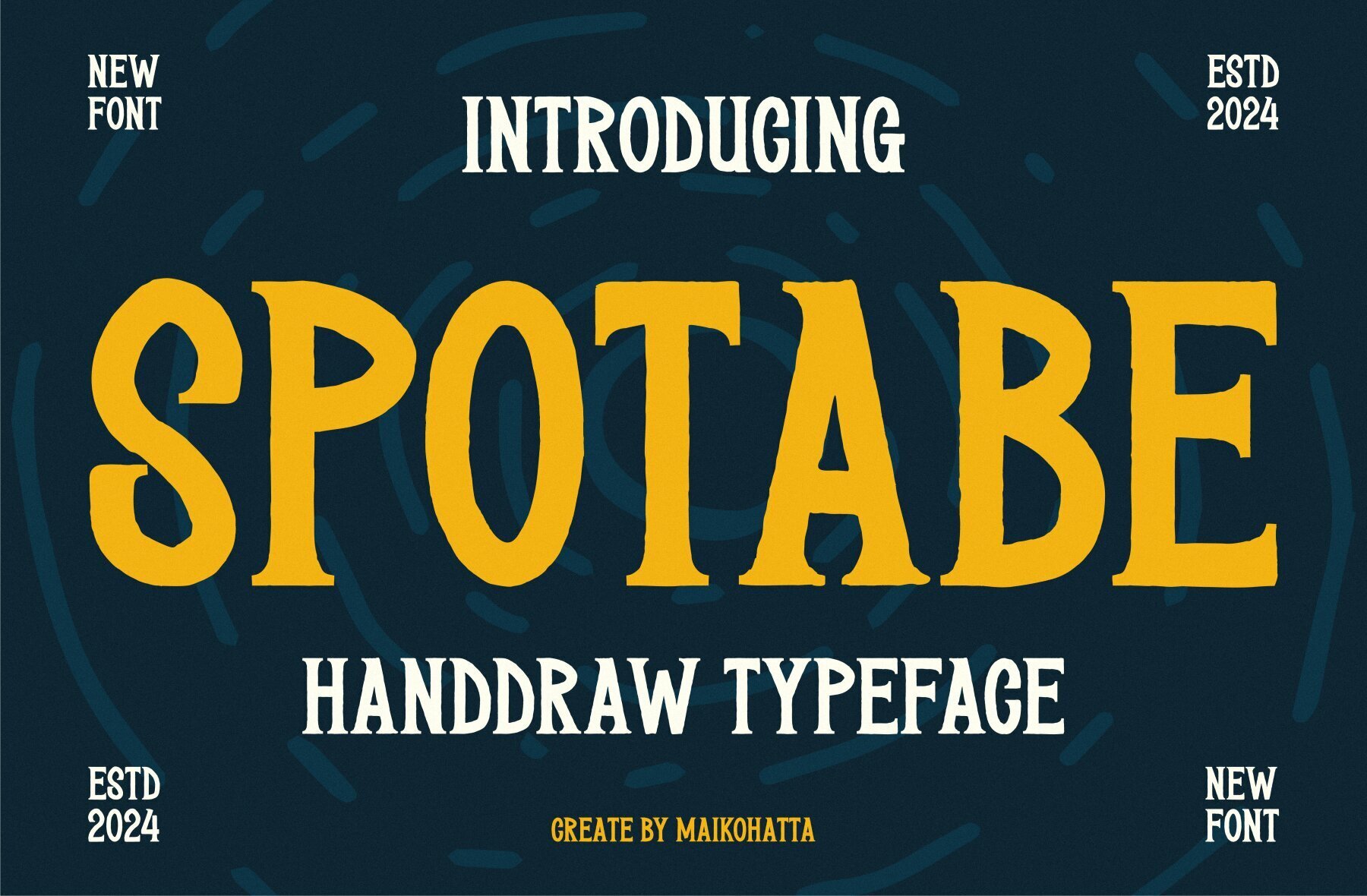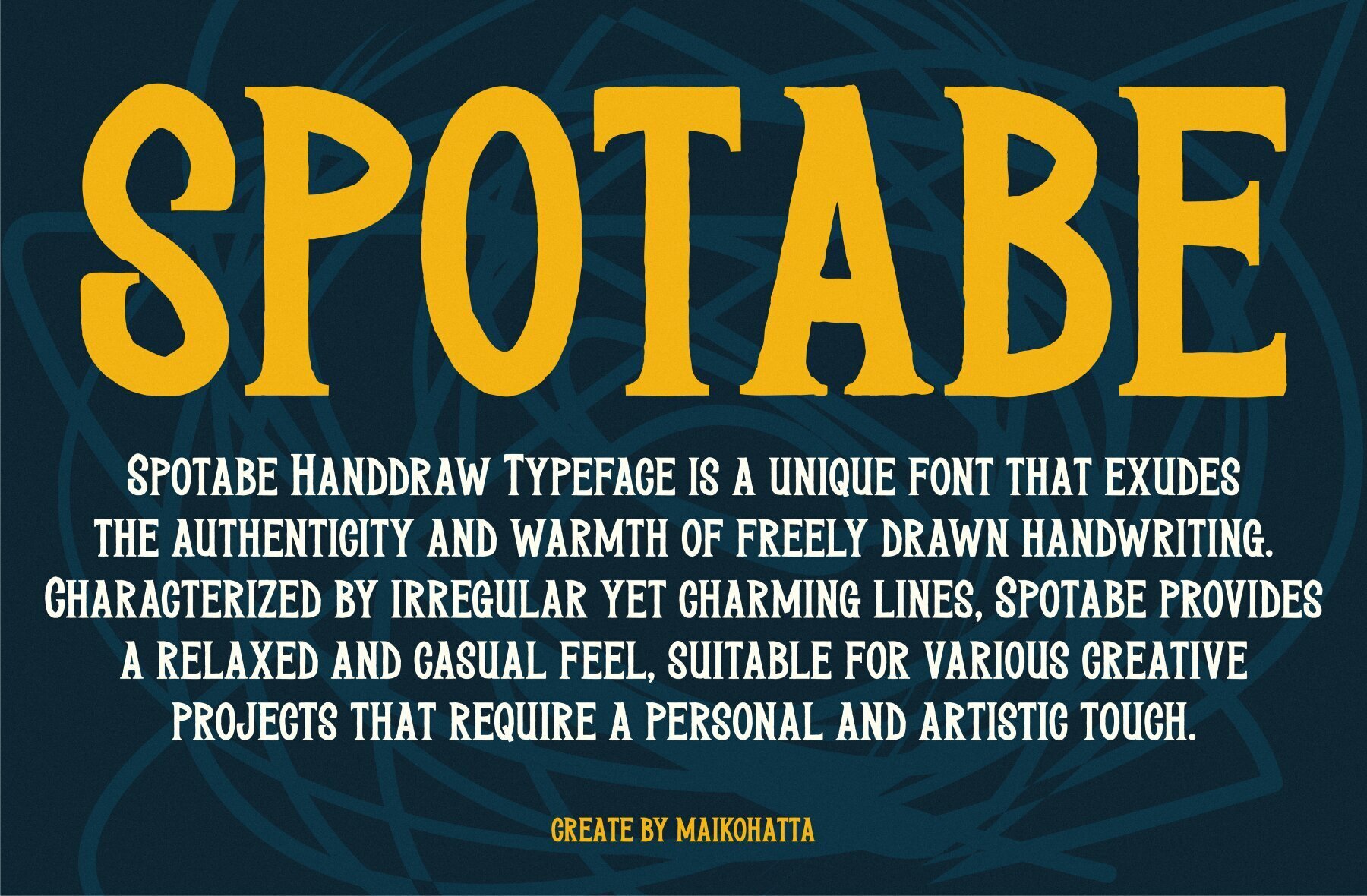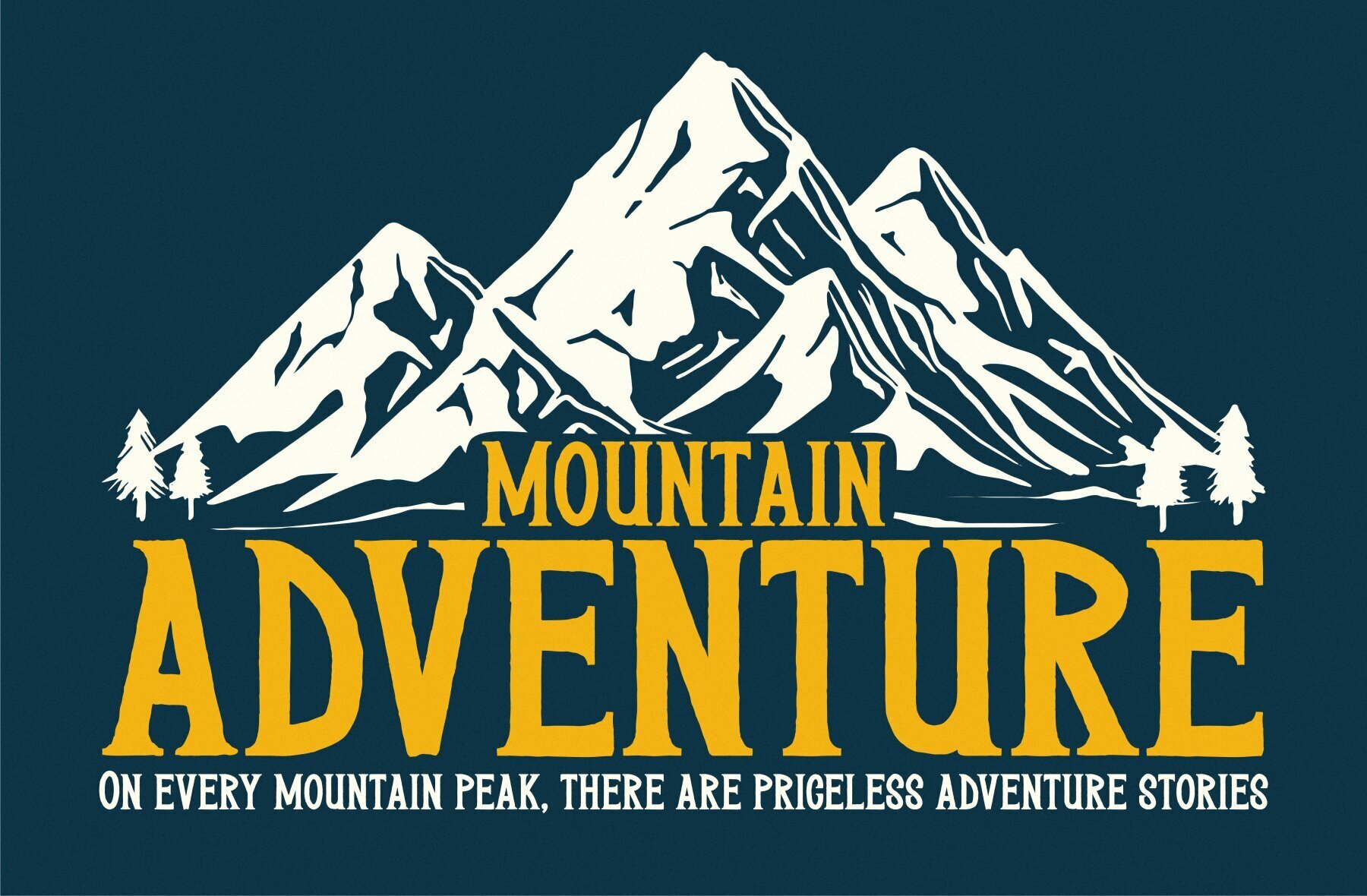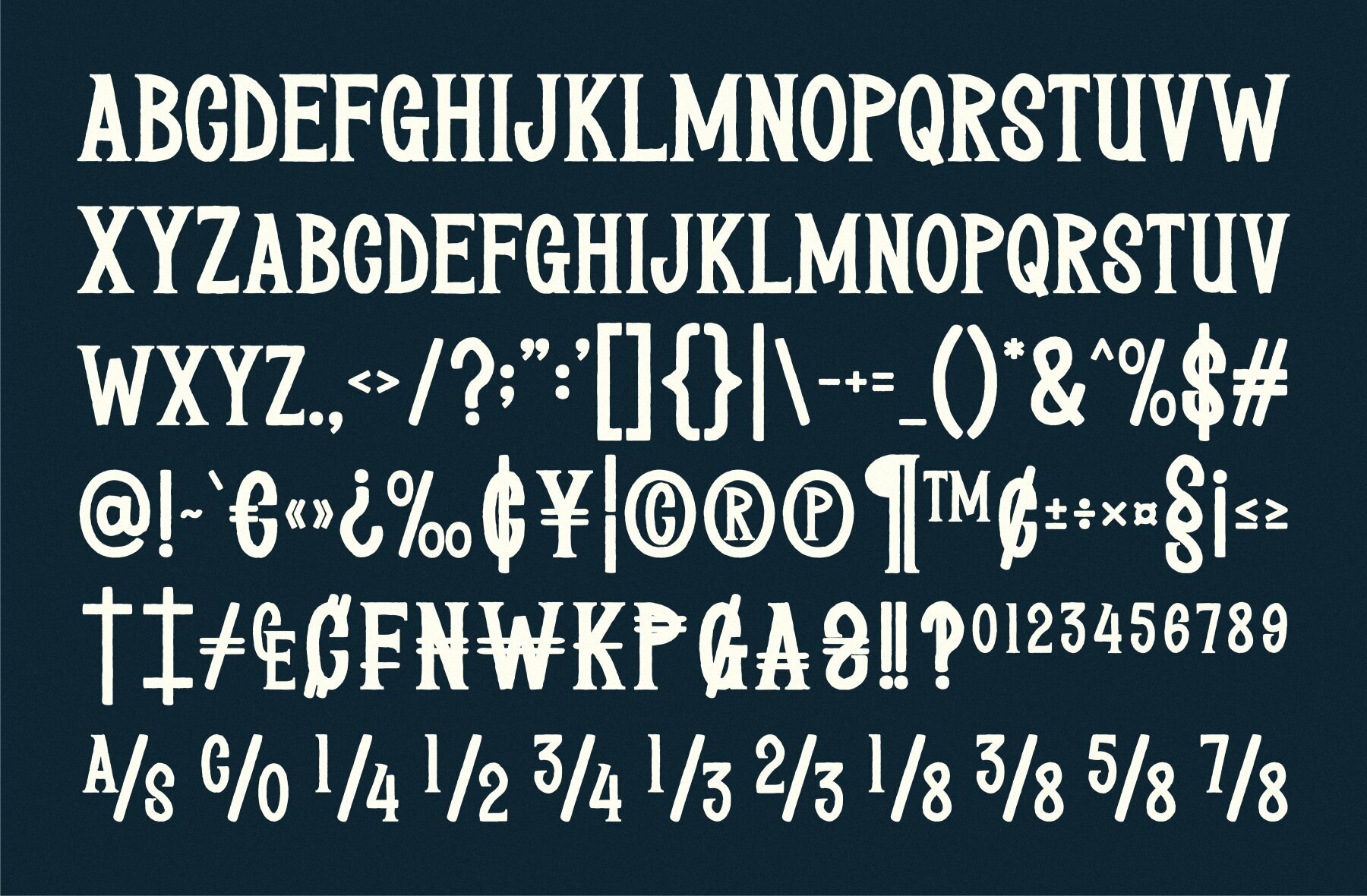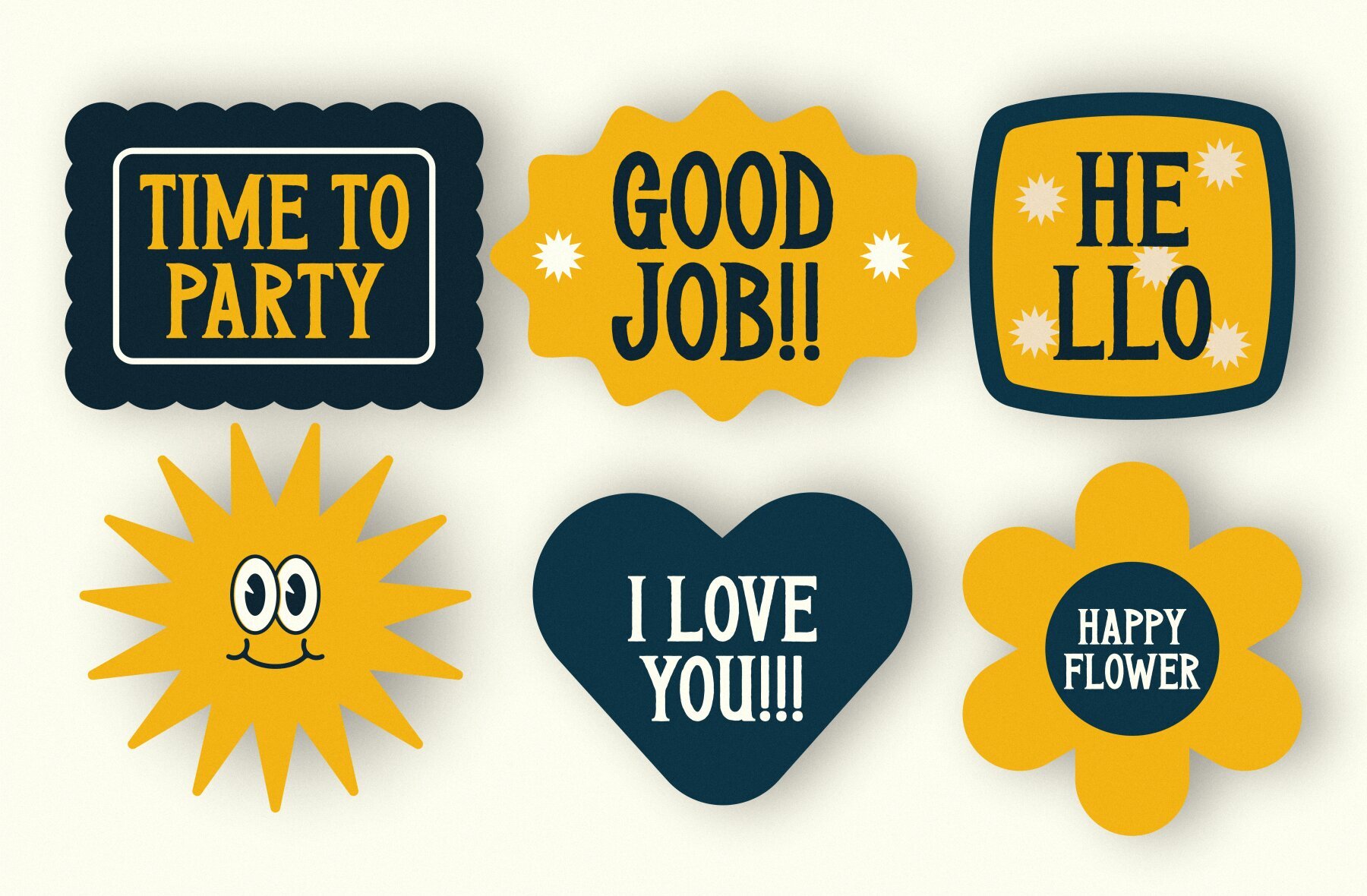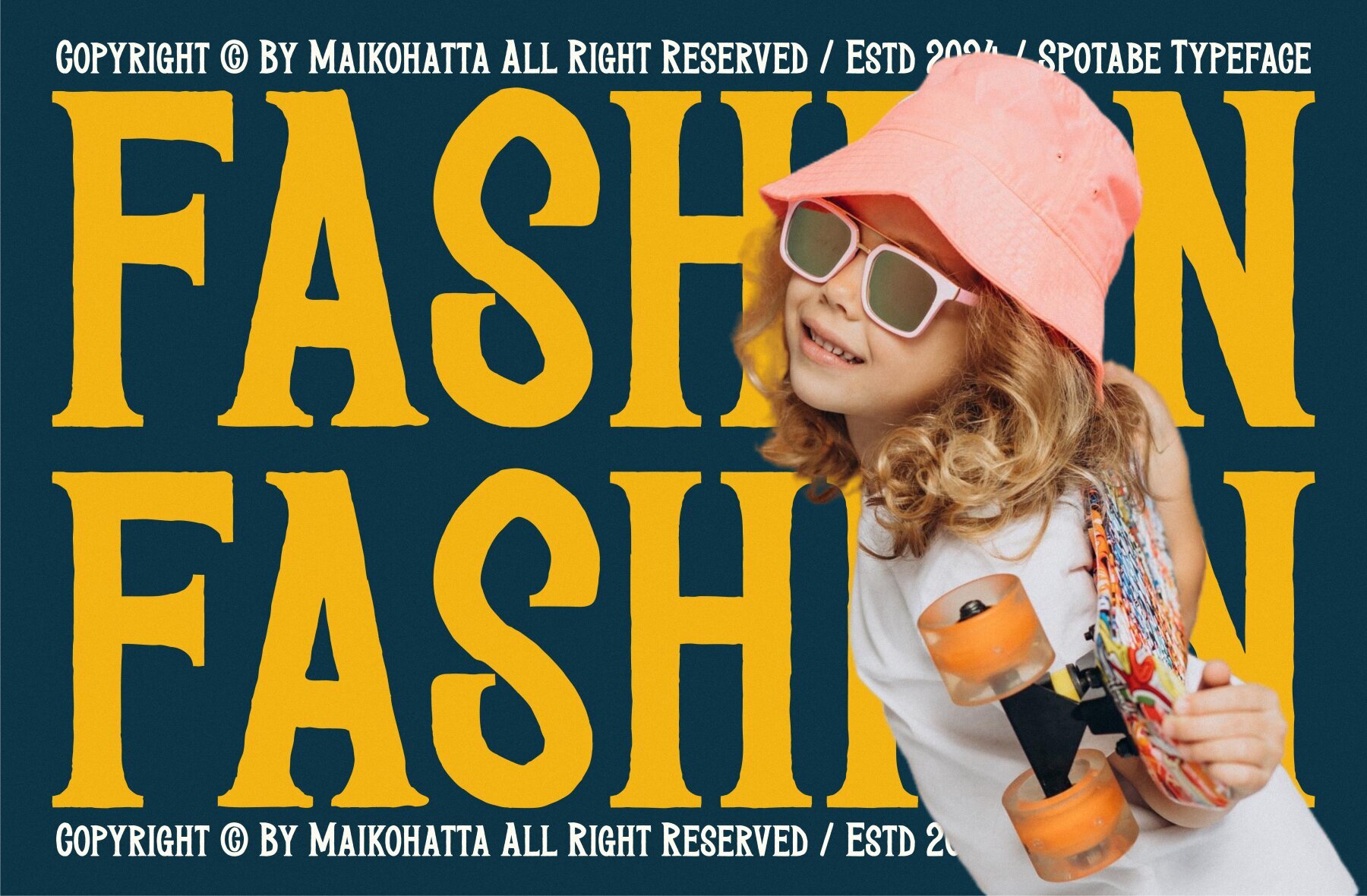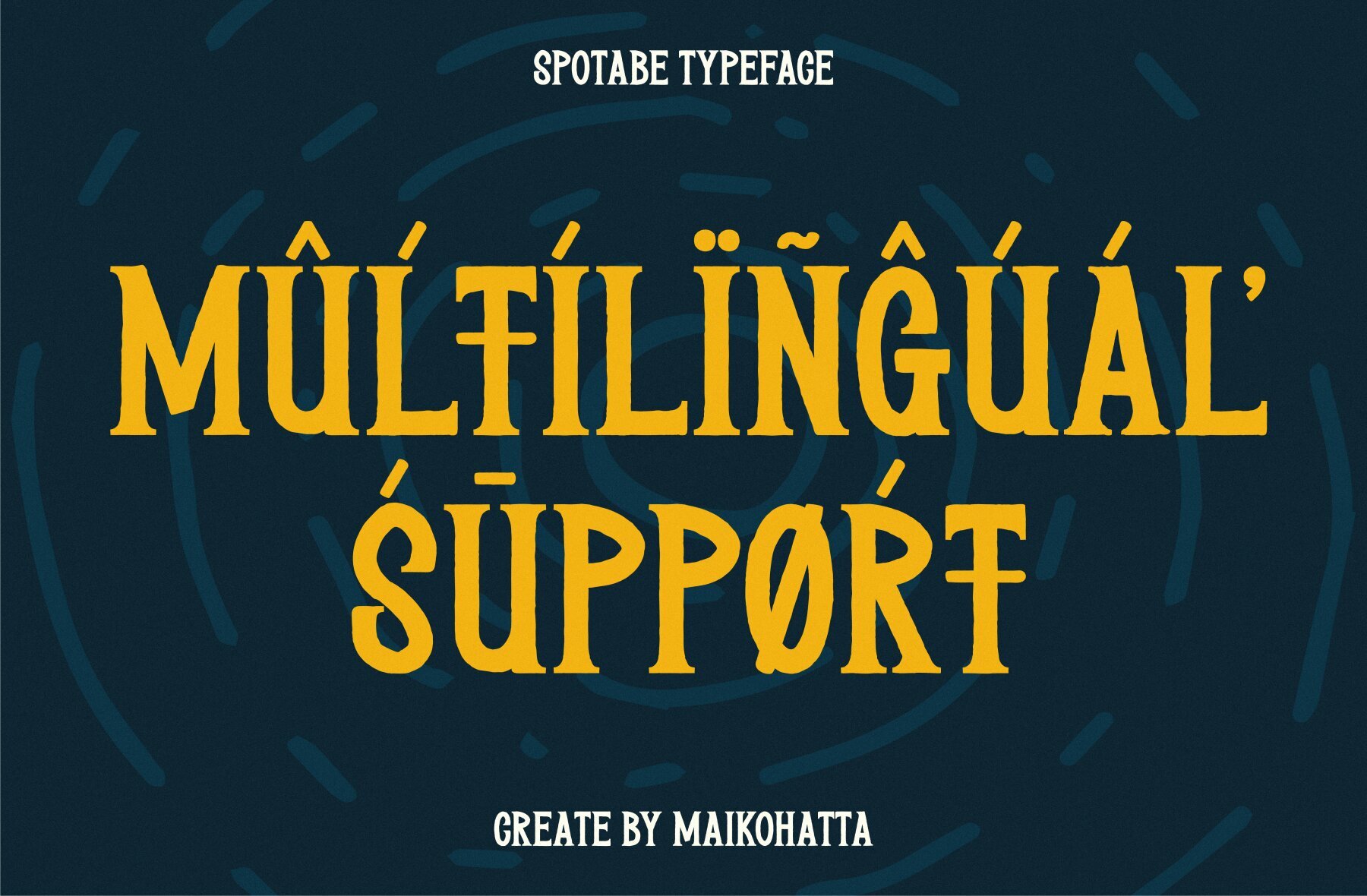
Spotabe Font
Spotabe Regular
Introducing Spotabe, a typographic masterpiece that harmonizes elegance and sharpness. Each letter in this font is meticulously crafted, focusing on balanced proportions and impeccable alignment. This font is ideal for various contexts, such as print design, promotional materials, or magazine layouts.Spotabe: Handdraw Typeface by Maikohatta
Features of Spotabe